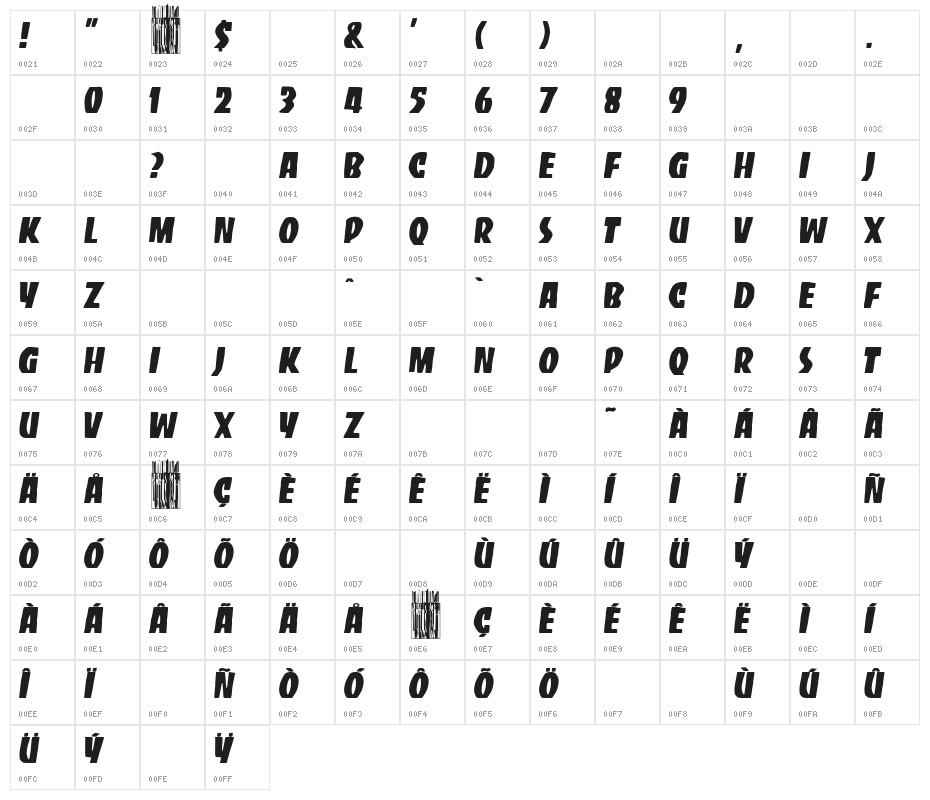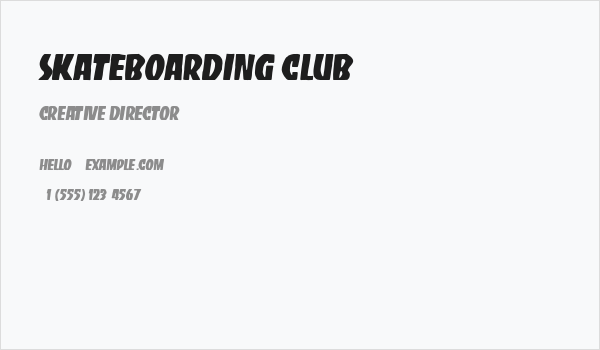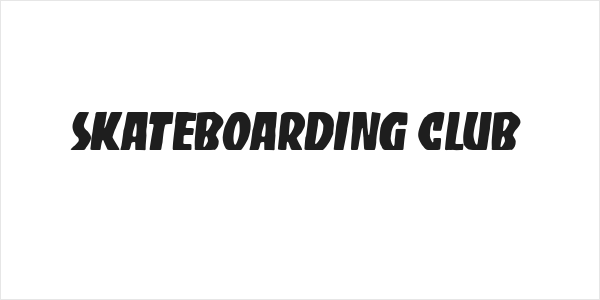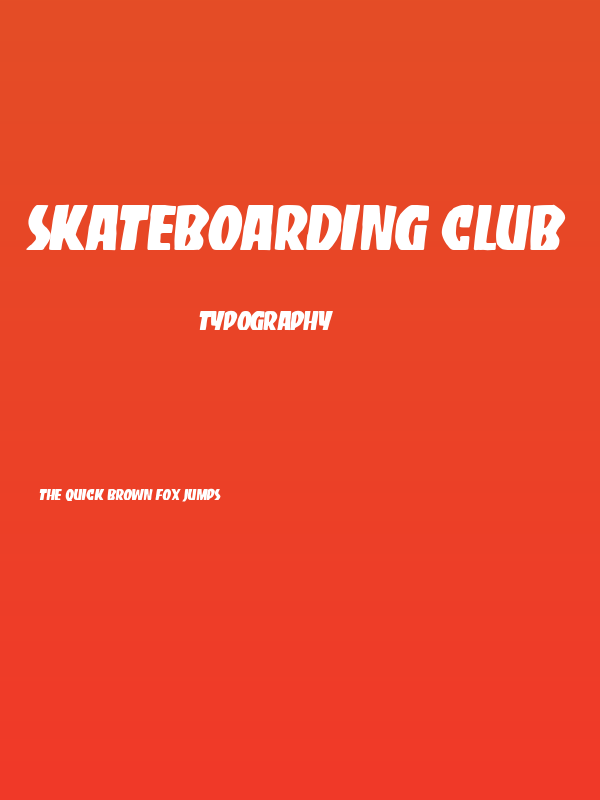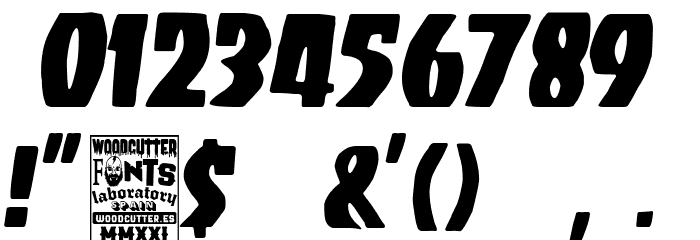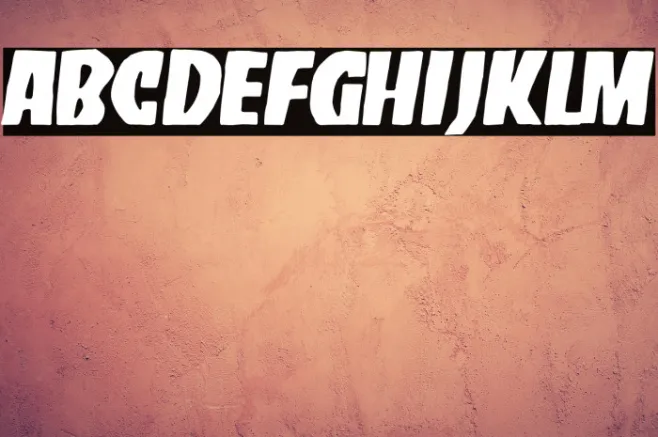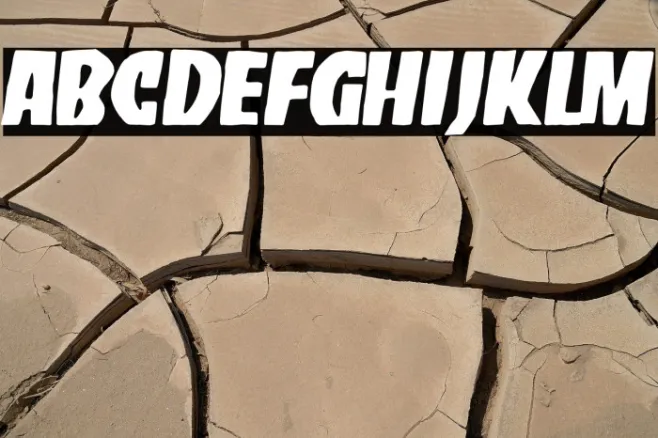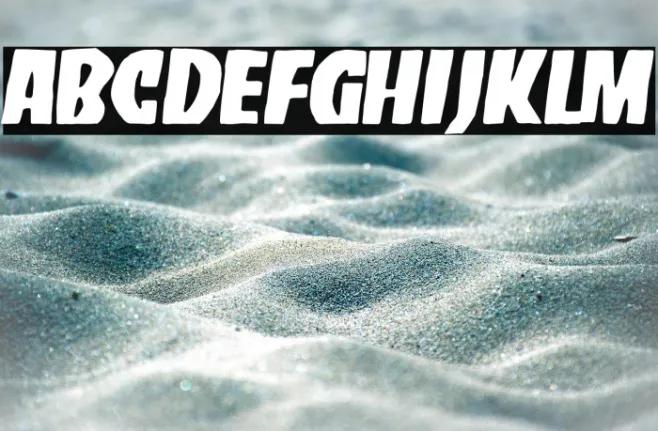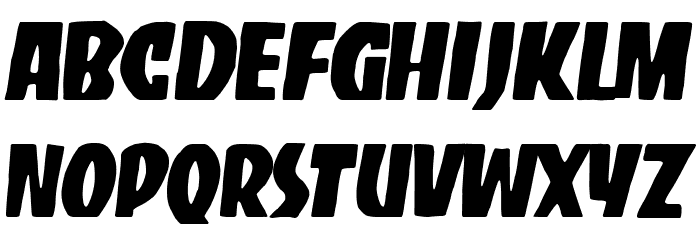
Skateboarding Club Font
Skateboarding Club Description
This font features a bold and dynamic style, characterized by its thick, angular strokes and slightly slanted orientation. The letters are designed with a sense of movement and energy, making it ideal for projects that require a strong visual impact. The uppercase and lowercase letters maintain a consistent style, with the numbers and special characters following the same bold and energetic design. The font's unique appearance is suitable for creative and modern applications, offering a distinctive look that stands out.
| Proposed Projects | Ideal for skateboarding brands, streetwear designs, event posters, and dynamic logos. |